Want to make your brand feel more natural, fresh, and eco-conscious? One simple but powerful way is by using leafy-style fonts in your design! These fonts are inspired by nature leaves, plants, and organic elements making them ideal for businesses like natural skincare, herbal tea, organic products, or eco-friendly stores.
Rolyna, a fresh, nature-inspired display font that combines modern sophistication with elegant botanical charm. Rolyna comes in two distinct styles: Regular for a clean look, and Aley with decorative swashes and leafy details, perfect for those who love a whimsical, organic feel. Its tall letterforms and nature-inspired flourishes create a unique visual identity that feels both graceful and playful, like vines growing on a fairytale garden gate. Rolyna is ideal for skincare and botanical logo designs, herbal packaging, eco-friendly branding, Wedding invitations with a garden or rustic theme, romantic editorial titles, fashion layouts, greeting cards, journals, and many other creative projects.
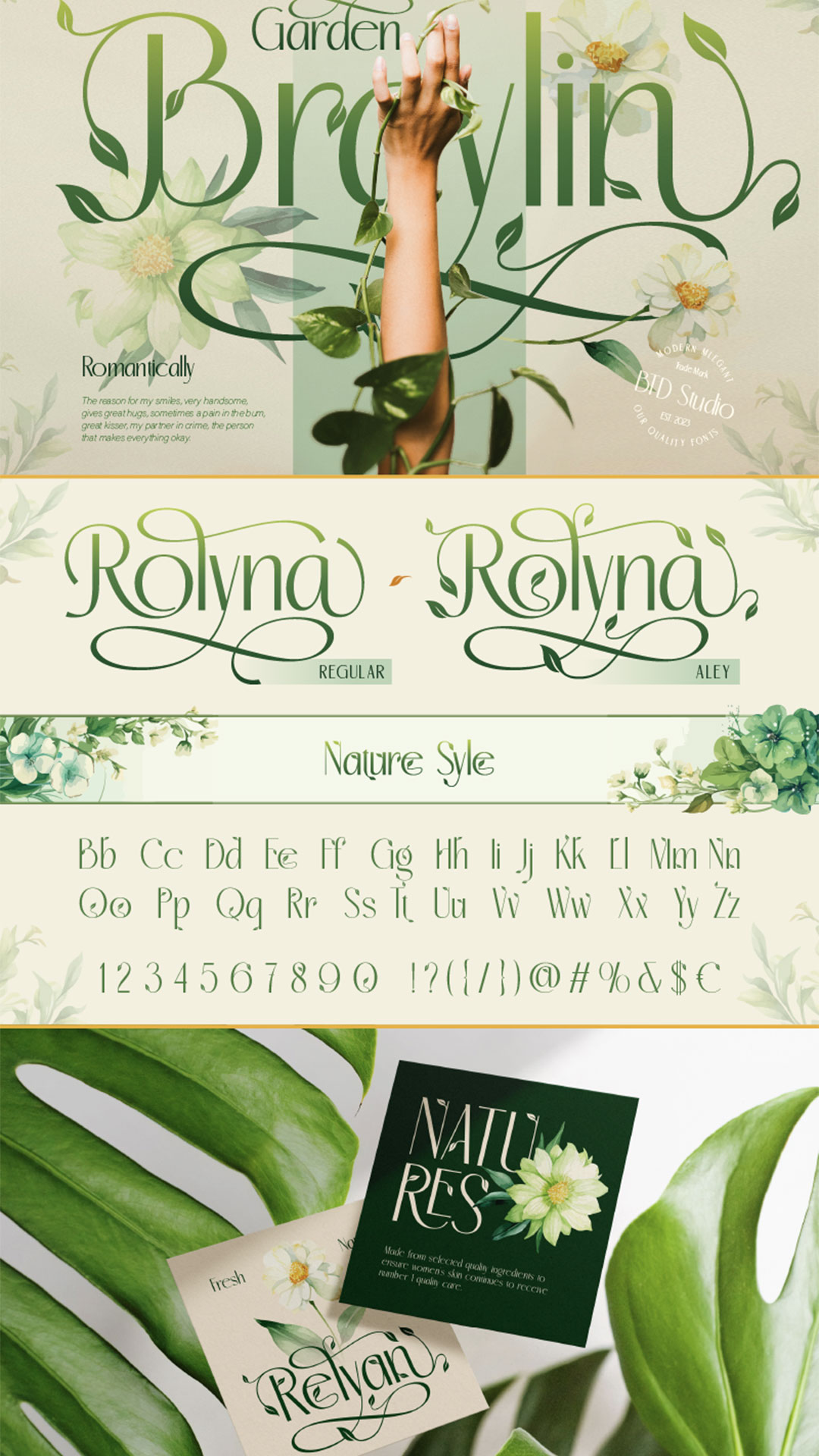
Say hi to Herlyna, a beautiful fusion of classic elegance and soft, flowing leaf ornaments, inspired by the gentle trails of climbing vines. Herlyna comes in two styles: Regular and Vine. Inspired by delicate vines and graceful leaf ornaments, Herlyna brings a touch of fresh air and natural luxury into every letterform. Perfect for eco-branding, wedding stationery, herbal products, and high-end logos, this typeface blends flourishing calligraphy with a modern organic feel. It includes multiple stylistic alternates to help you customize your typography effortlessly.
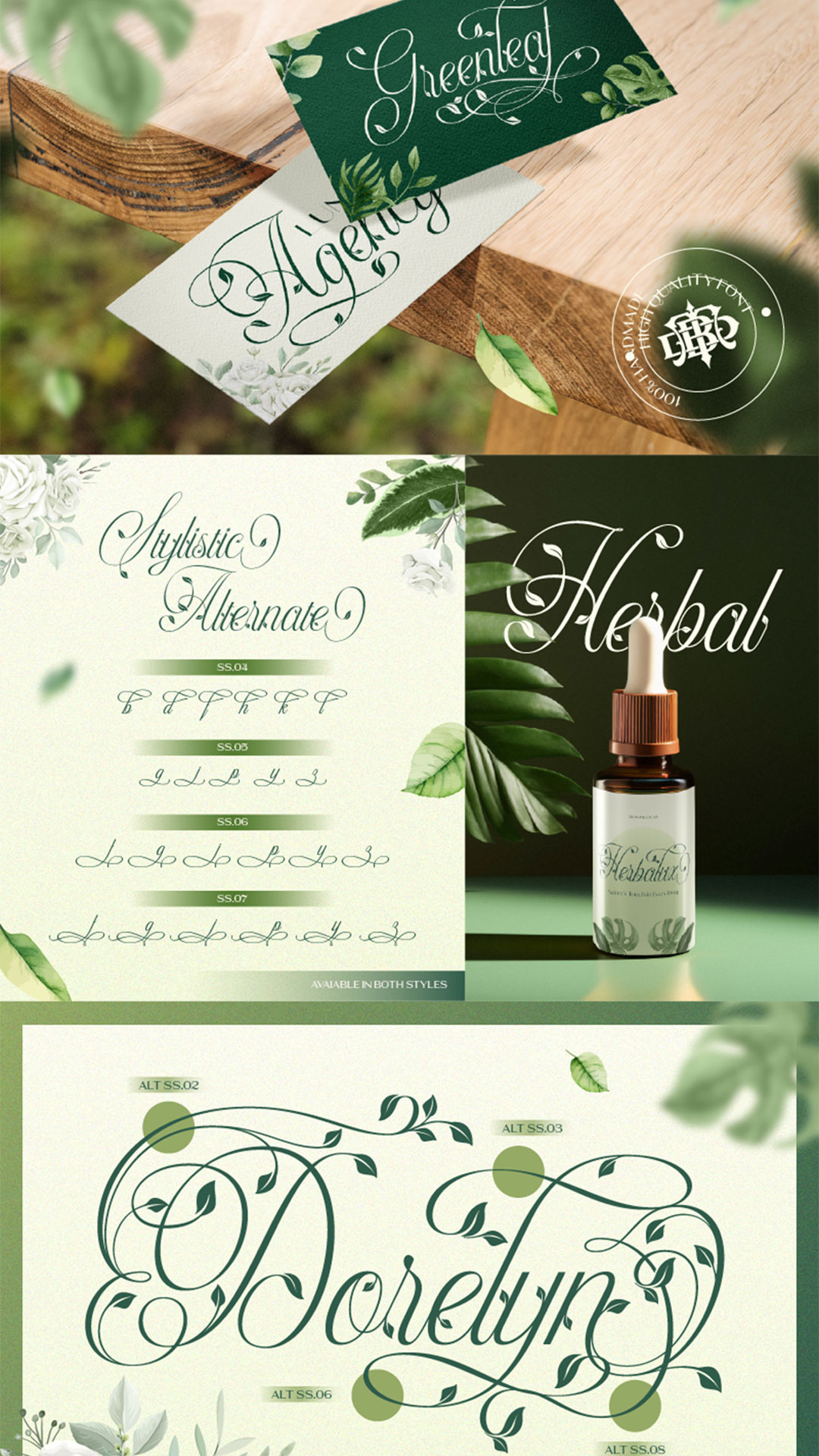
Whether you’re designing packaging for organic products or launching a brand with eco-friendly values, leafy fonts like Rolyna and Herlyna are great tools to bring your design closer to nature.